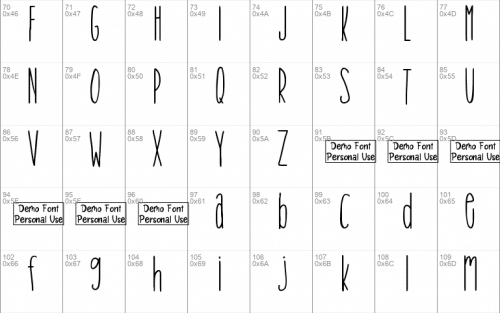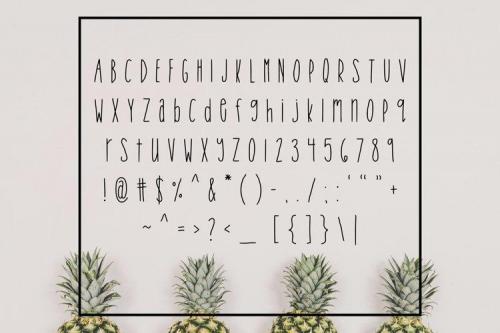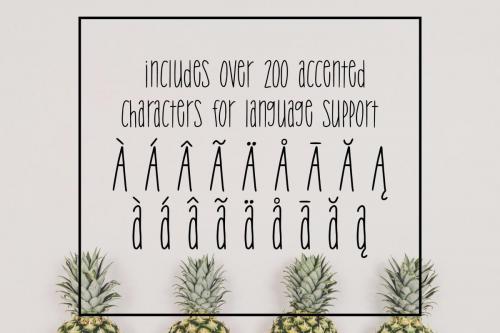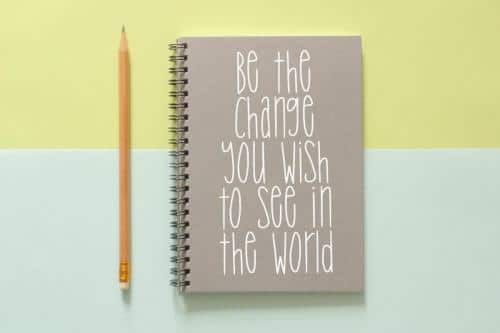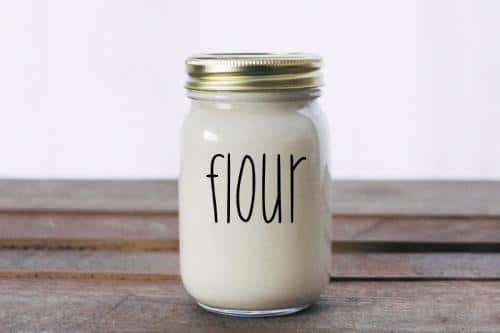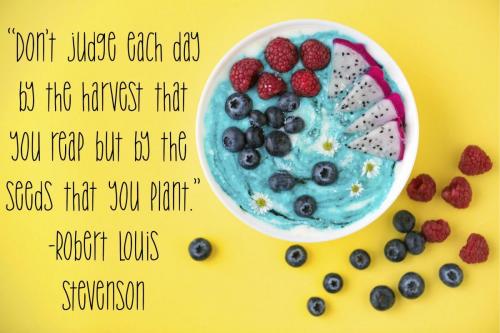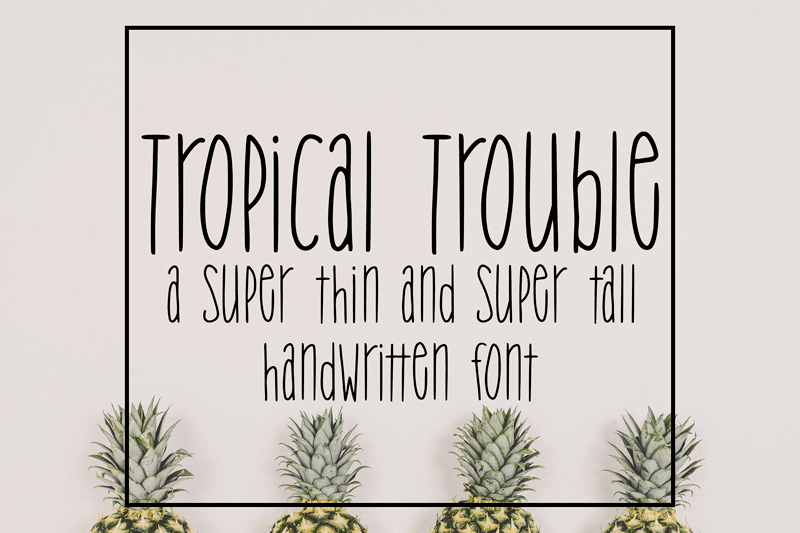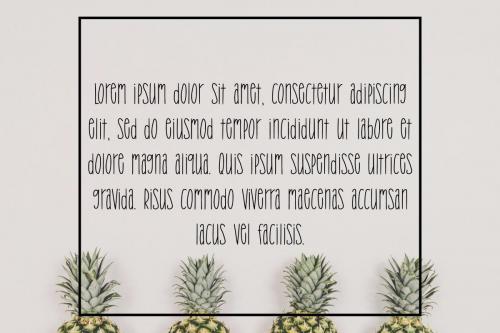
The Tropical Trouble is a hand lettered sans-serif font. This super tall and skinny font could be used for a variety of projects!
- Designer: SavoringSurprises